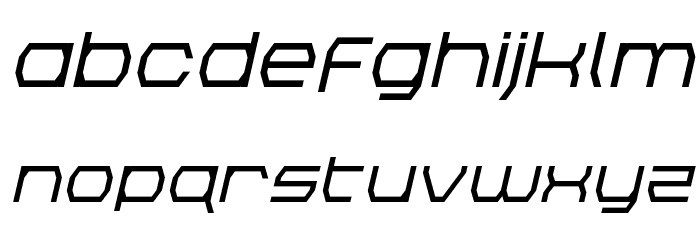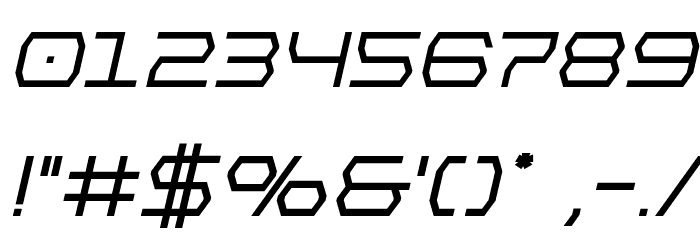
Bretton Bold Italic Font
This font features a modern, geometric design with a distinct italic slant, giving it a dynamic and forward-moving appearance. The characters are constructed with clean, angular lines and sharp edges, creating a futuristic and technical feel. The uppercase and lowercase letters maintain a consistent style, with a uniform stroke width that adds to the sleekness of the design. The numerals and special characters follow the same geometric pattern, ensuring a cohesive look across all elements. This font is ideal for projects that require a contemporary and innovative touch.
A modern, geometric italic font with sharp, angular lines and a futuristic style.
- Proposed Projects: Ideal for technology branding, modern advertising, futuristic posters, and digital interfaces.
- Use Case: Headlines, Logos, Digital Interfaces